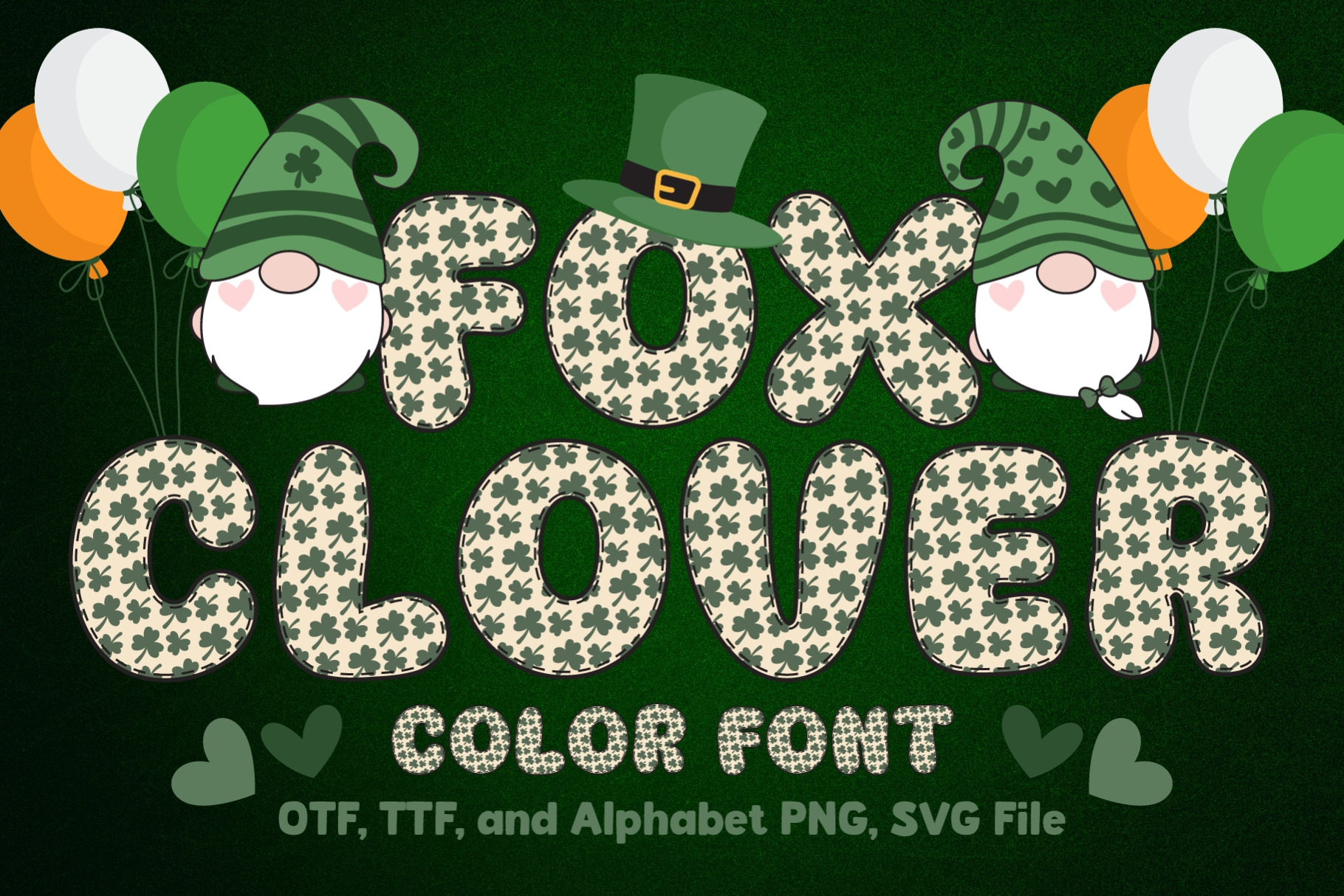
Fox Clover Color Font
Fox Clover is a cute and fun color font. This font is your go-to for crafting cute greeting cards that express affection and warmth. Fall in love with its authentic feel and use it to create gorgeous invitations, beautiful stationary art, eye-catching social media posts, and cute greeting cards.